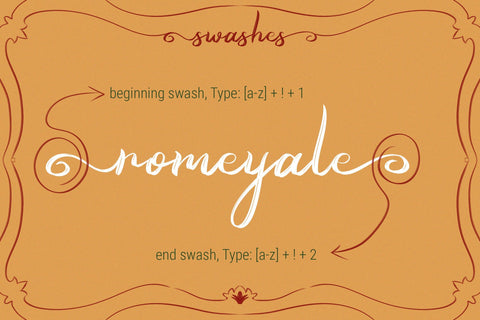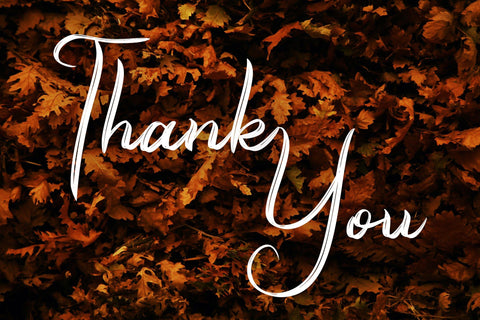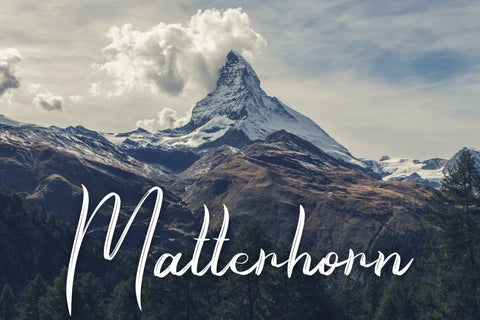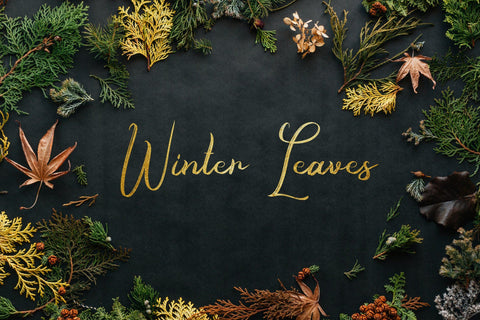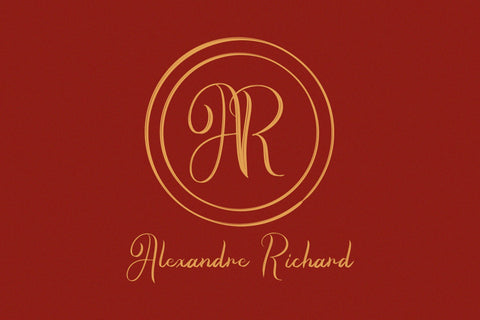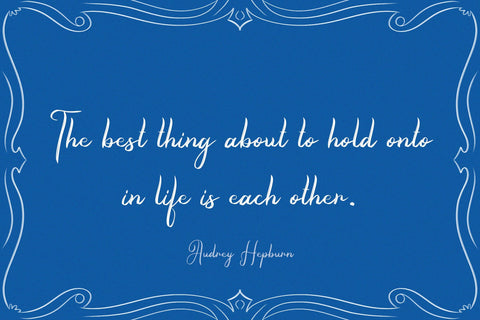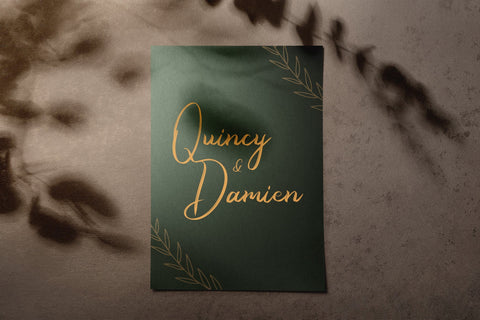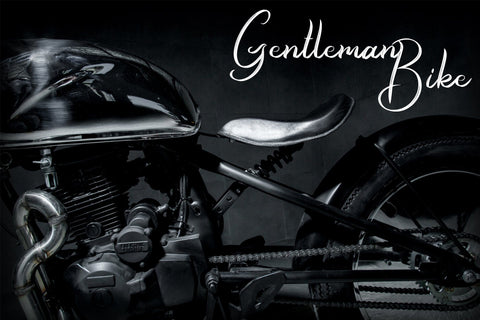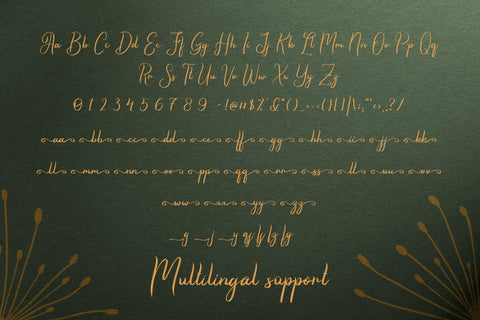
Romeyale | Textured Brush Script Font
Romeyale is a stunning natural brush font. It features elegant swashes and it is perfect for adding a sophisticated look to your designs. Use Romeyale for branding projects, packaging, wedding invitations, Christmas projects and more!